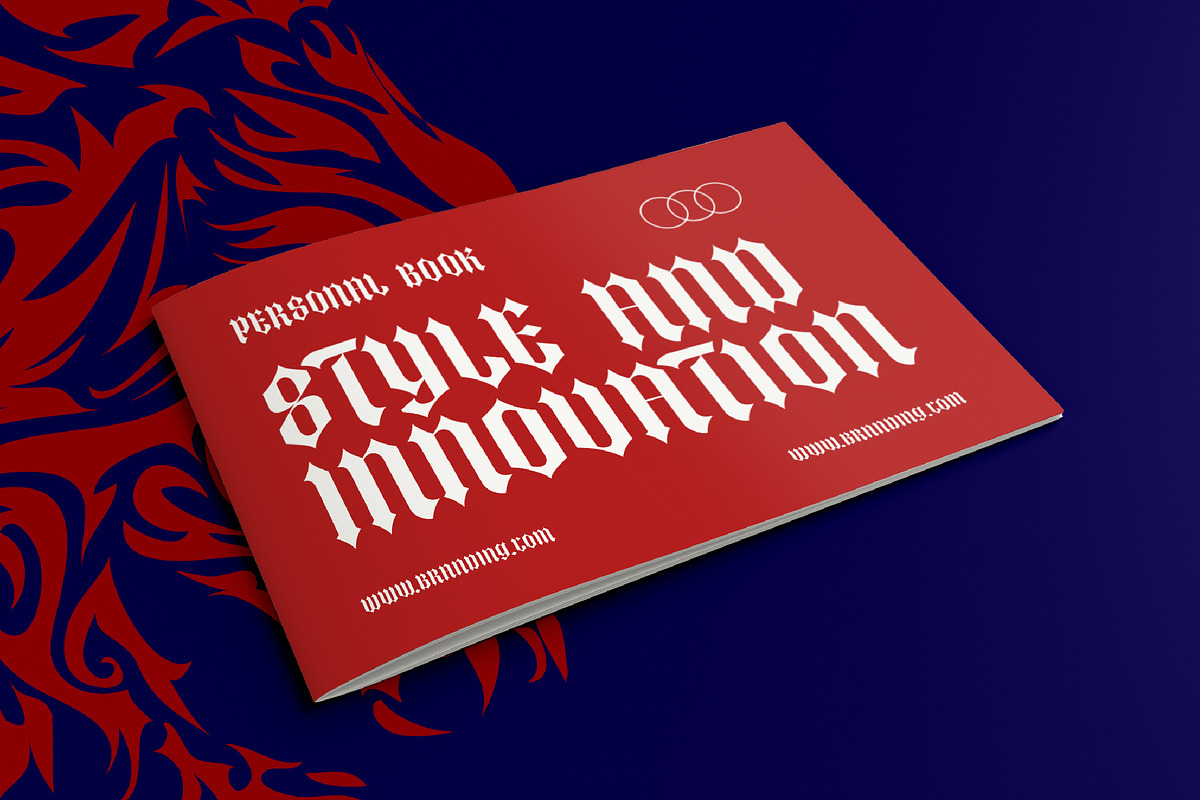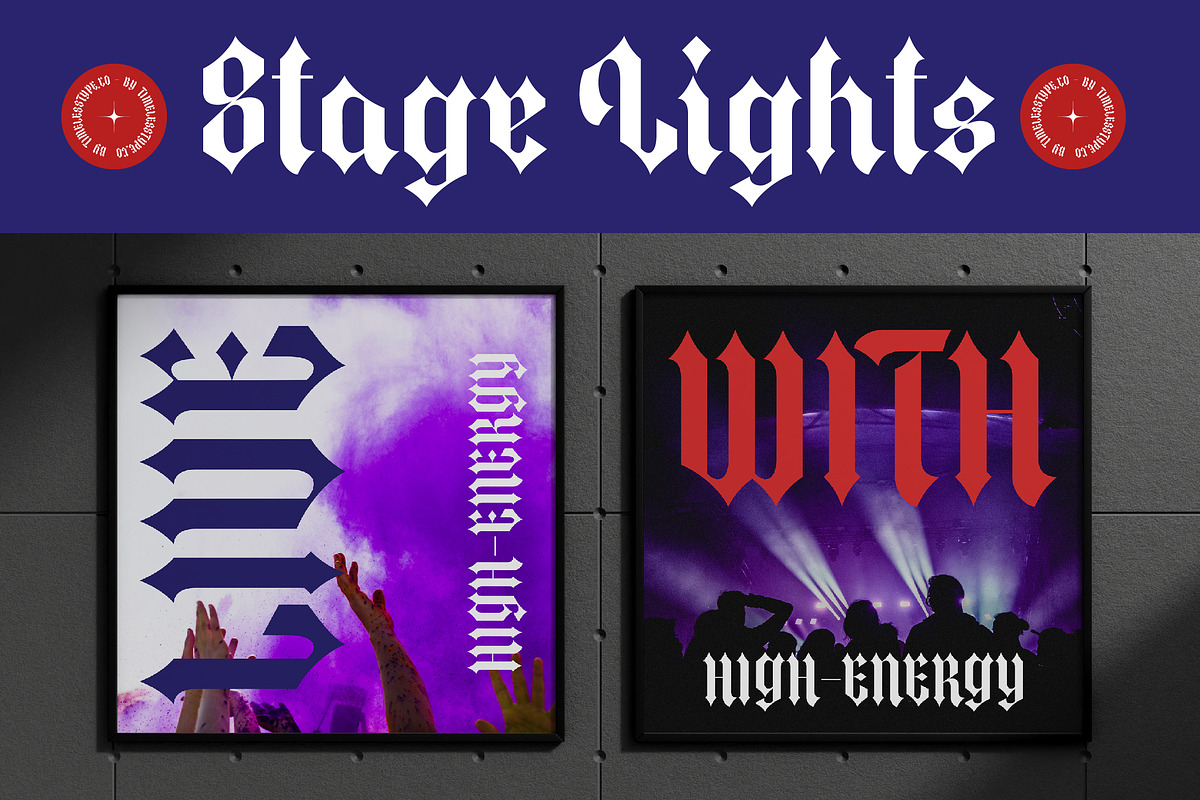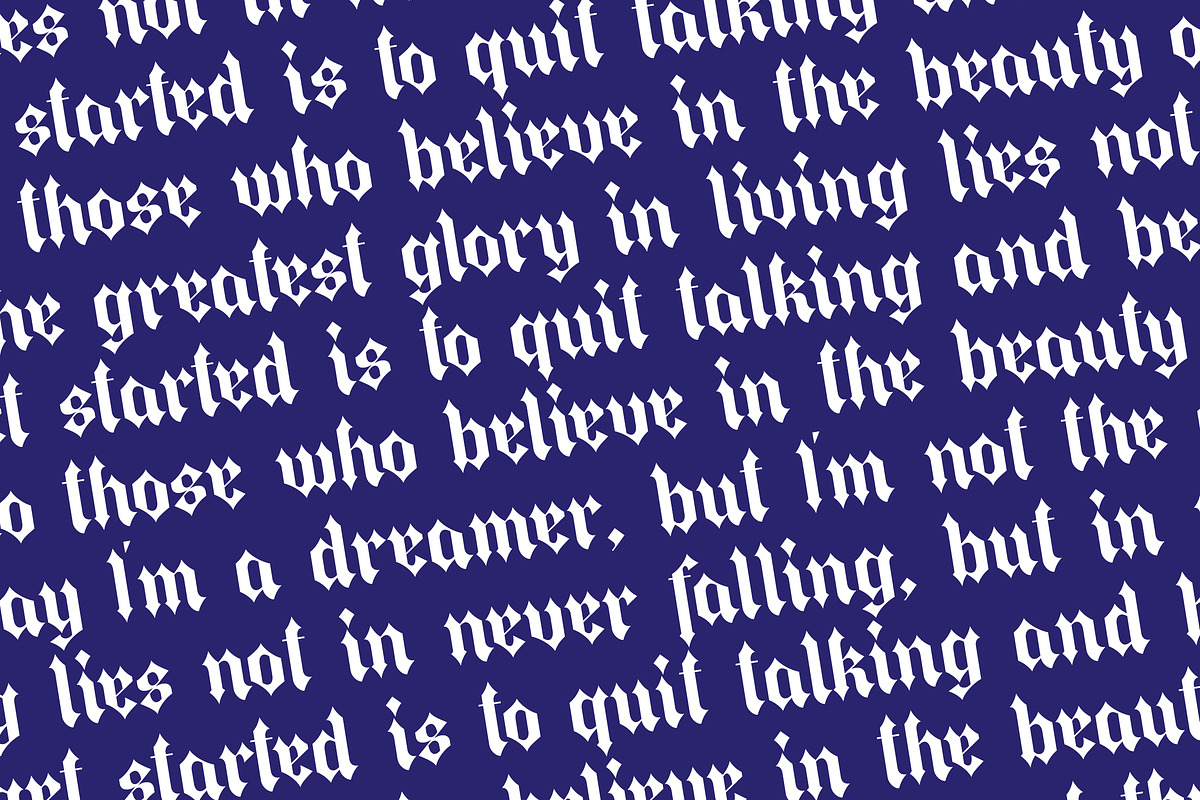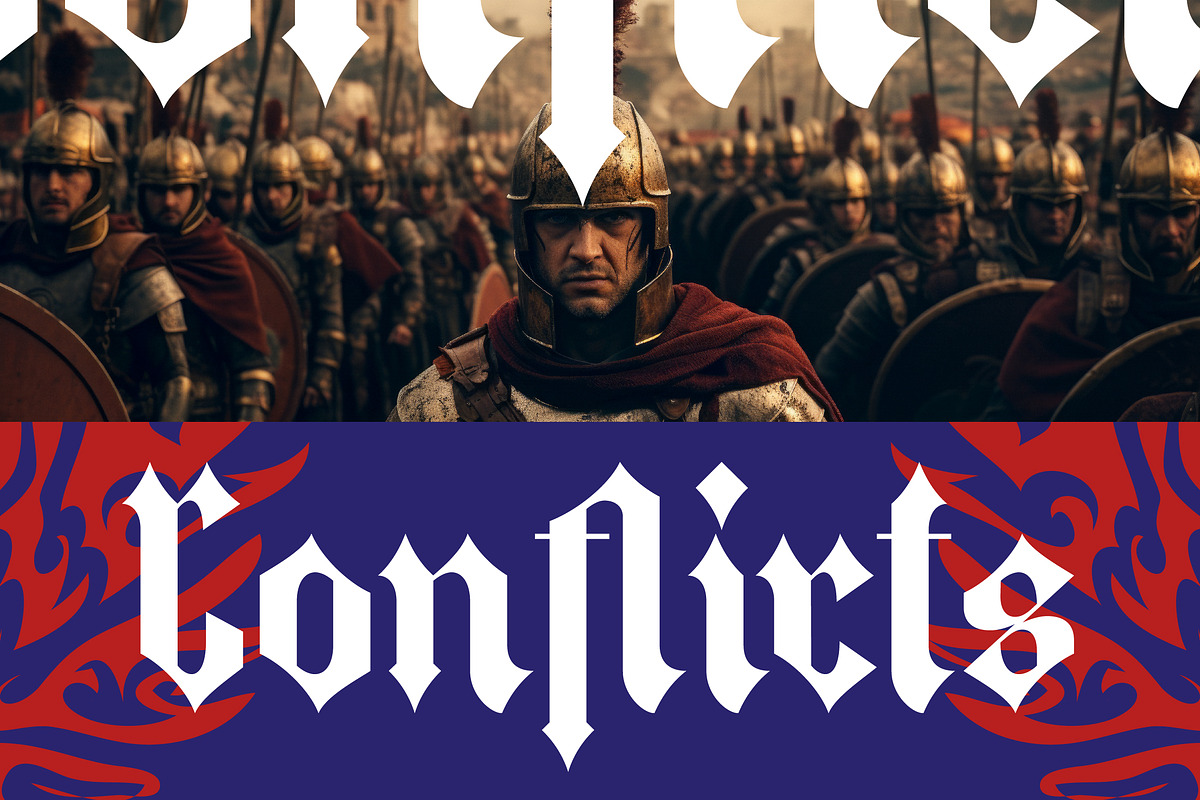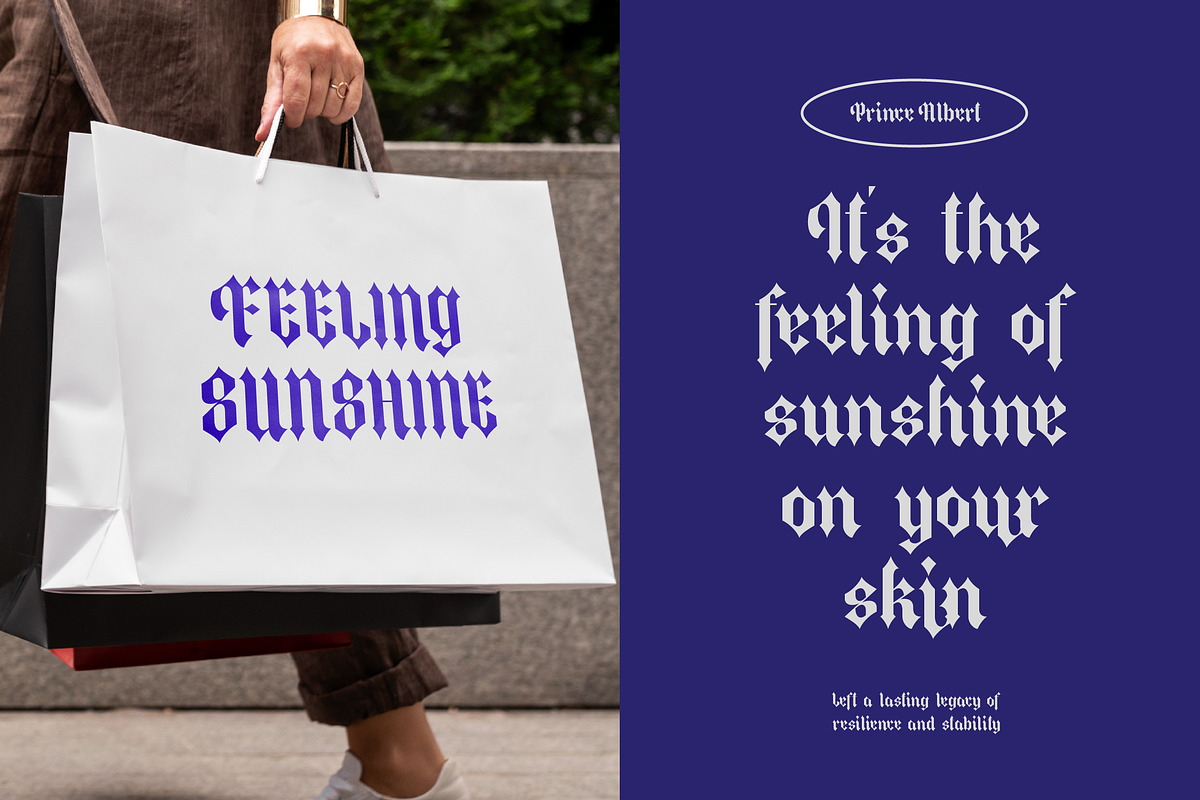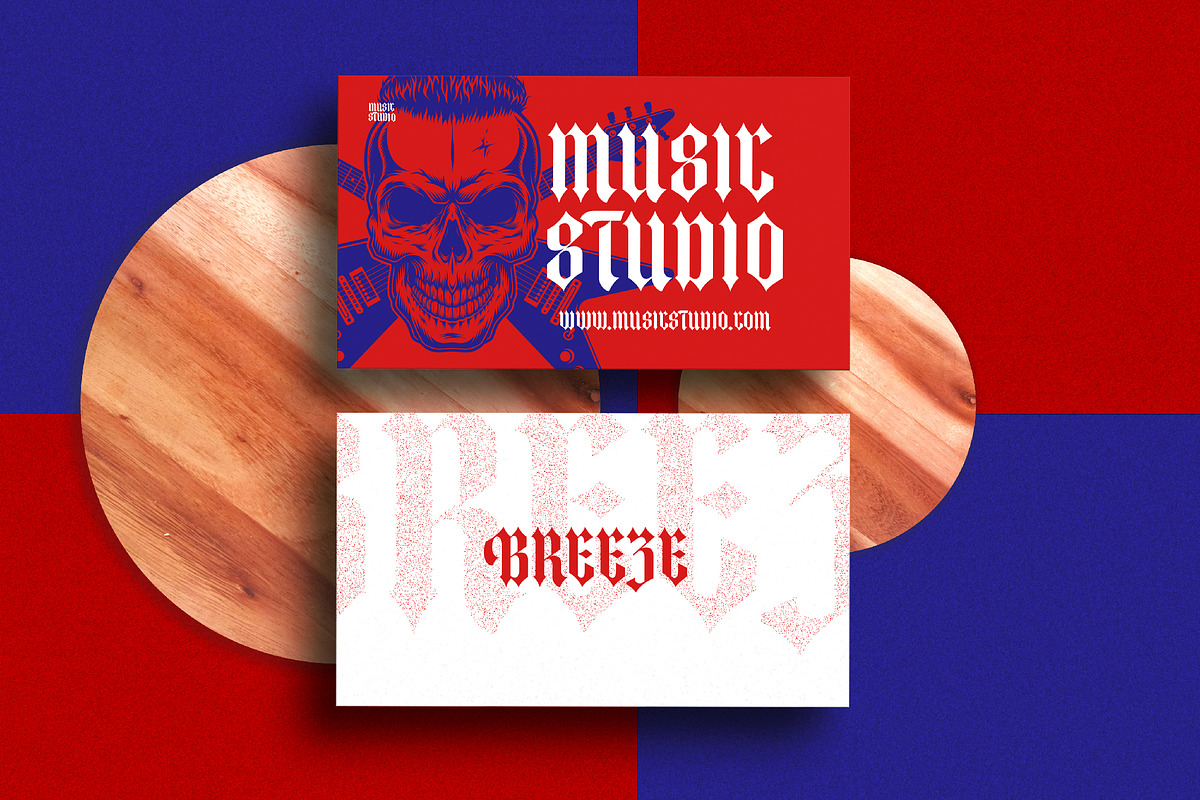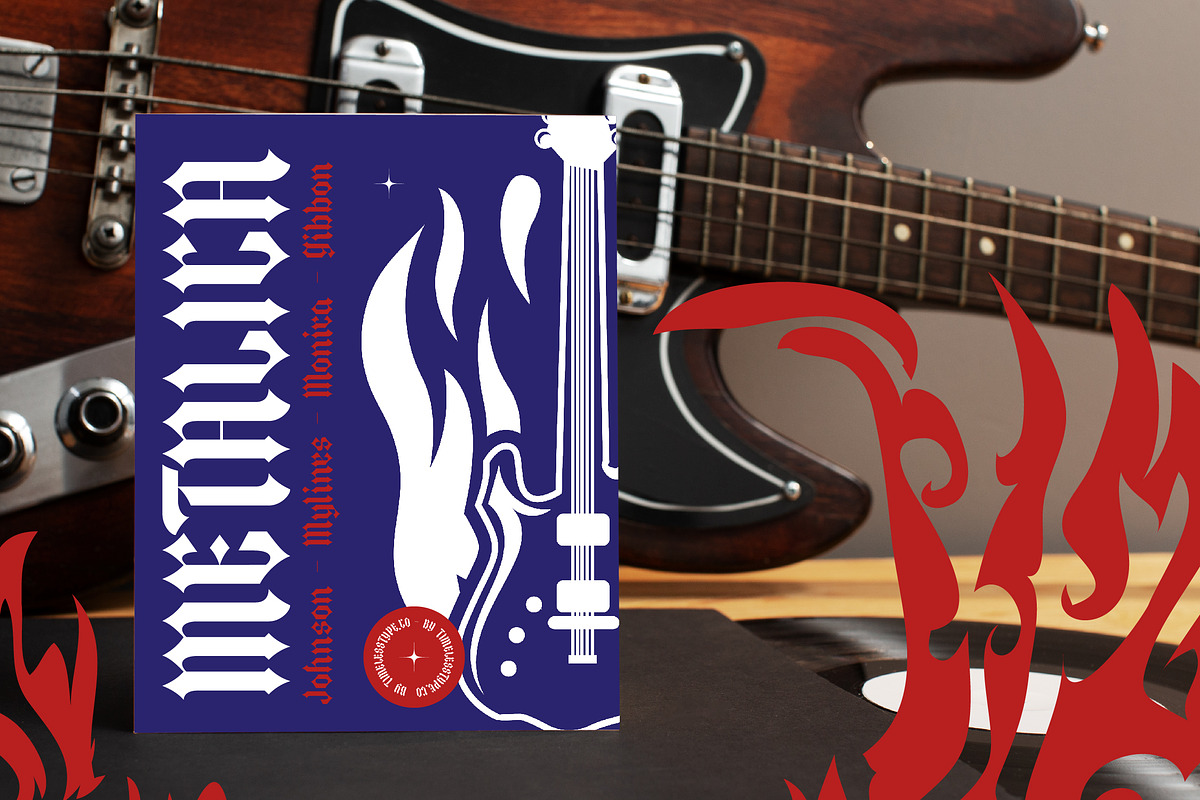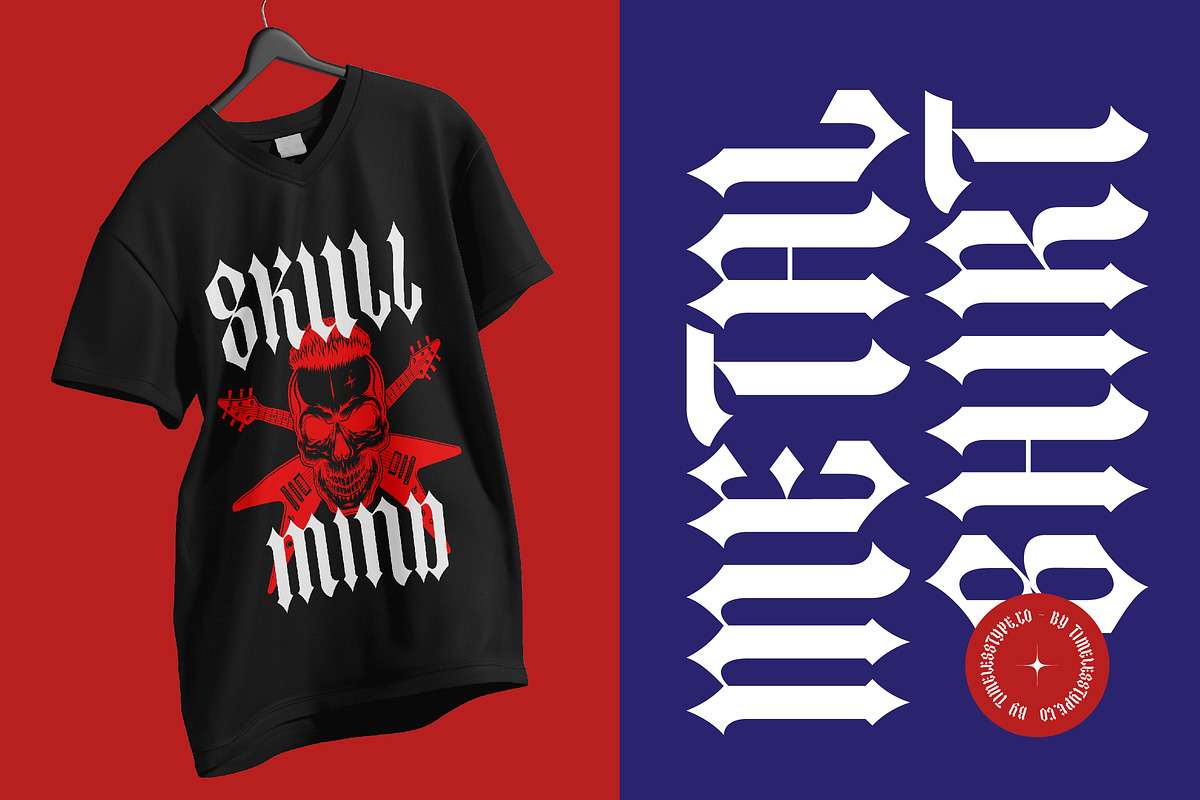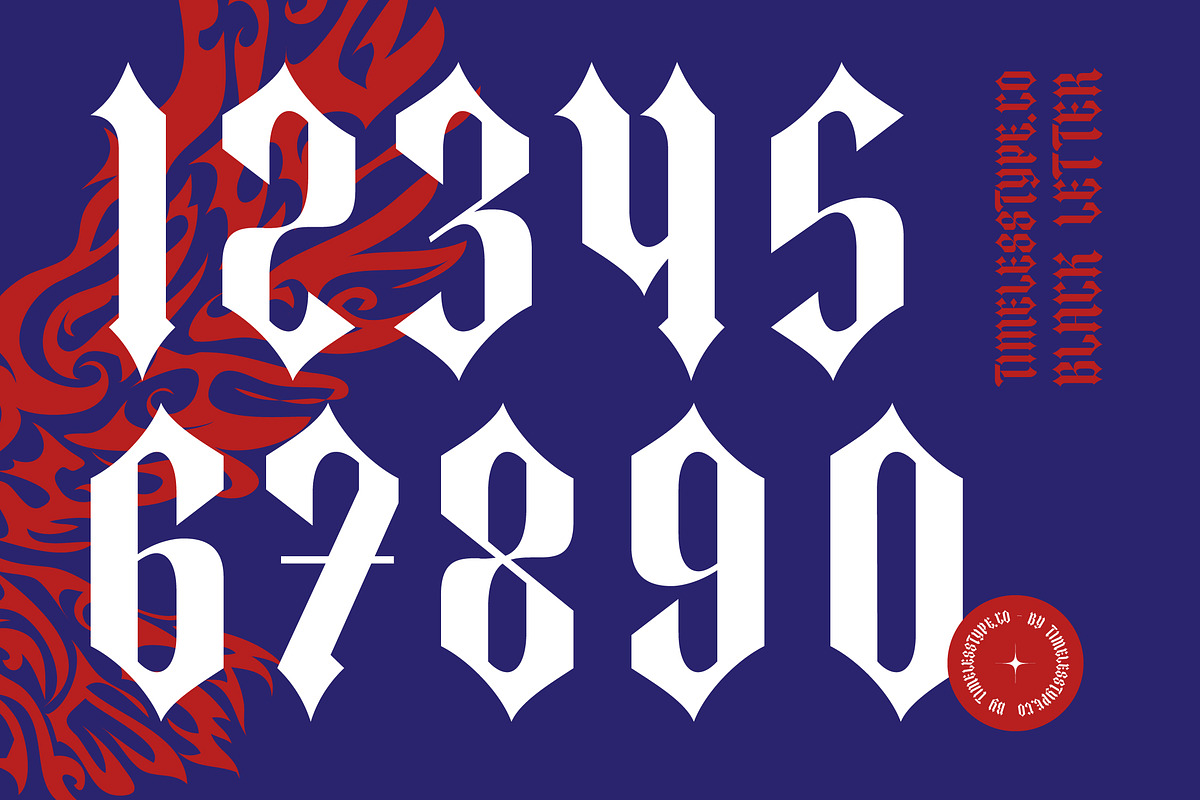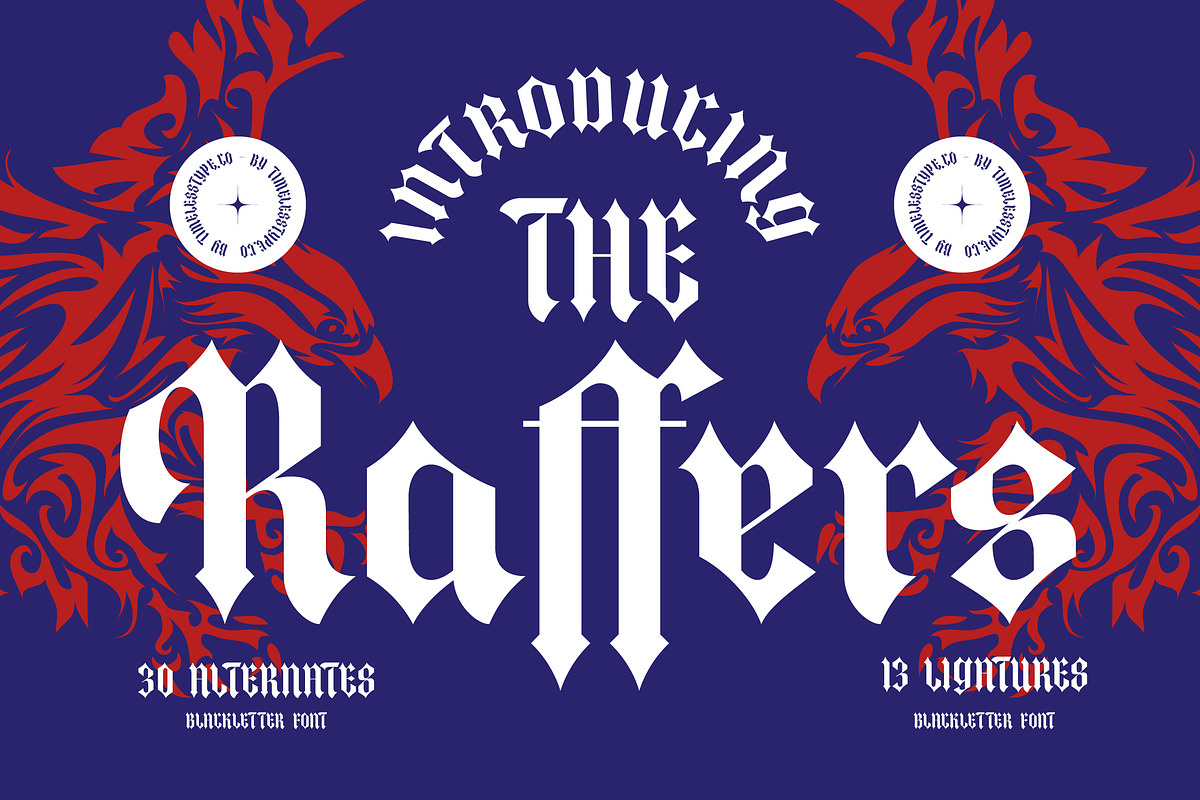
The Raffers Blackletter Font
Unleash a bold new era of visual storytelling with The Raffers, a typeface that commands attention through its sharp, medieval-inspired architecture. This font transforms every word into a powerful statement of intent, blending historical grit with a polished, contemporary finish.
Inspired by the soaring intensity of predatory birds and the intricate script of ancient manuscripts, this typeface captures a spirit of fierce independence. It evokes the atmosphere of underground subcultures and heritage craftsmanship, making it the perfect choice for designs that refuse to be ignored.
Designed for maximum visual impact, this font offers a unique take on a modern serif display with its aggressive angles and luxury typography feel. It functions as a high-performance high-contrast serif alternative, delivering an unmistakable editorial font quality that ensures a massive branding impact for any creative project.
Aligning perfectly with the rising modern serif trend, this typeface brings a gothic edge to the world of editorial display fonts. It stands at the forefront of character-driven typography, offering designers a tool to break away from the mundane and embrace a more provocative, stylistically rich aesthetic.
This versatile typeface is an ideal solution for high-end logo design and comprehensive branding identity systems that require a touch of dark elegance. From bold editorial layouts and product packaging to alternative wedding invitations and edgy fashion labels, it adapts to diverse creative needs with ease.
The Raffers comes fully equipped with a comprehensive set of ligatures and creative alternates that allow for deep customization and unique letter combinations. With a robust library of multilingual support and international characters, this font ensures your message resonates globally across all digital and print platforms while including decorative swashes for added flair.
- Ligature 13 Alternate 30